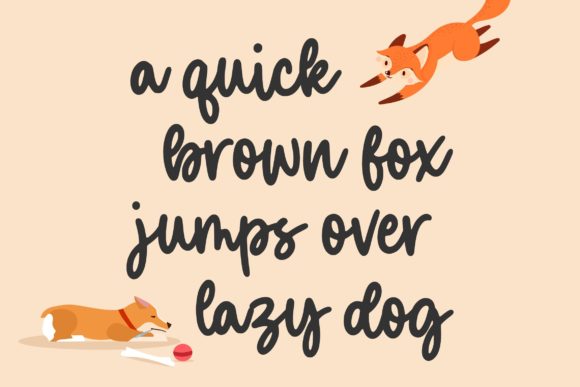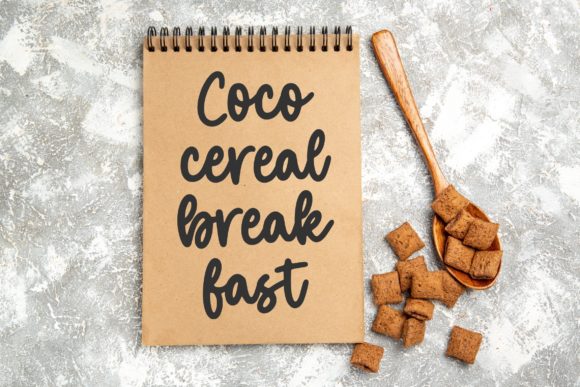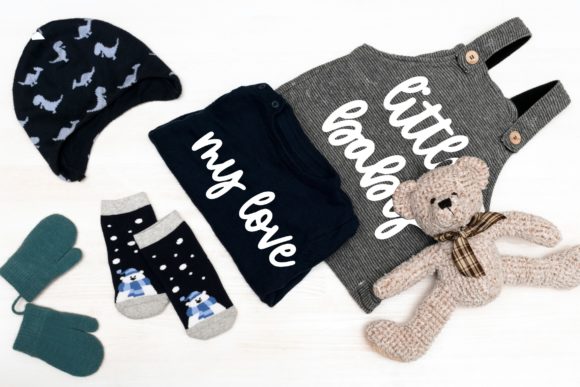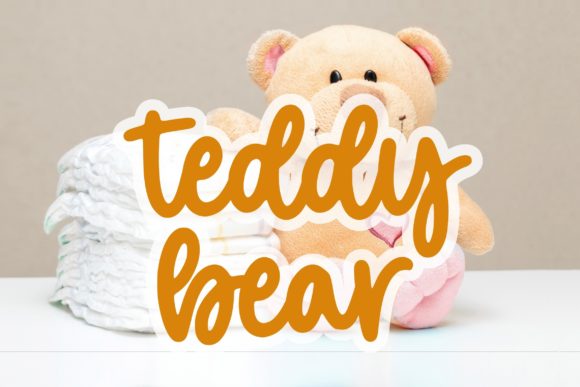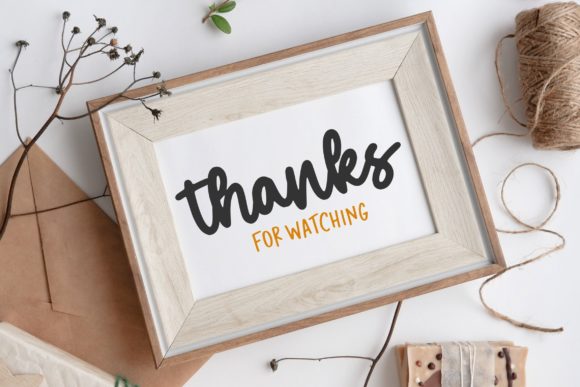
About Roleyfox Font
Roleyfox is a cute and frail handwritten font, described by an elegant touch, perfect for your favorite projects. Fall in love with its incredibly distinct and timeless style and use it to create spectacular designs!